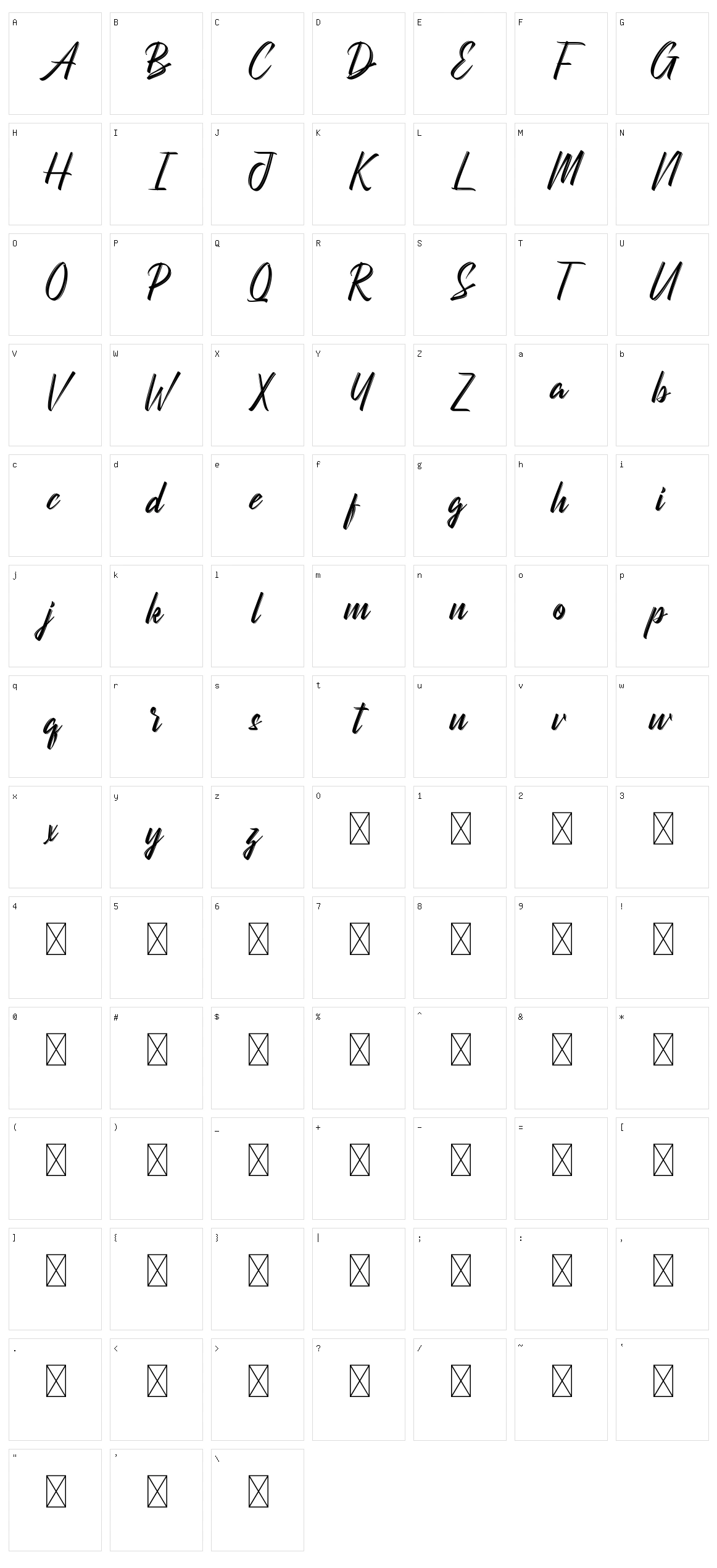
The free font Backscatter is carefully designed by RaisProject, showcasing a thoughtful balance of creativity and usability and falls under the Script font style. When you download the ZIP file, it contains only 78.25 KB of font files, making it lightweight and quick to download. Please review the license details below to understand permitted usage and distribution rights. If license information is not available, we recommend using this font for personal projects only or contacting the author directly for commercial usage permissions.